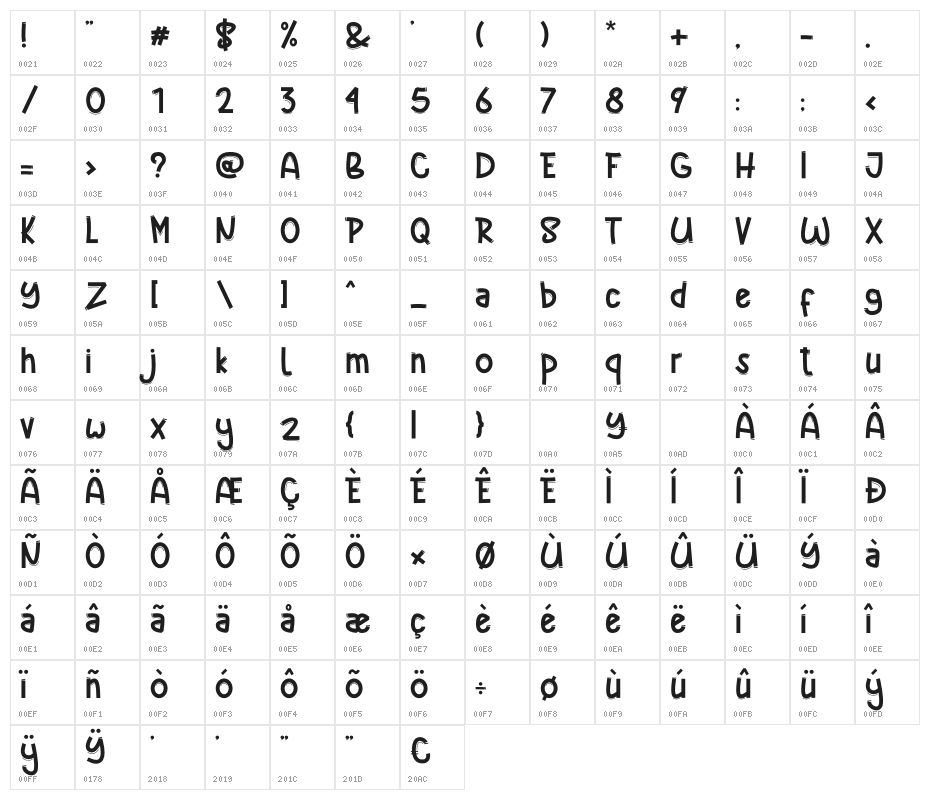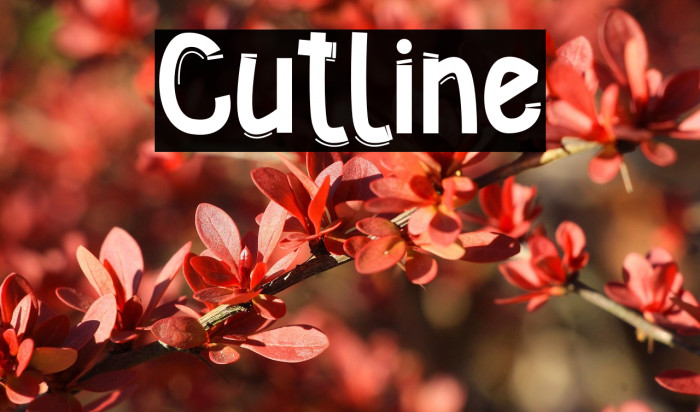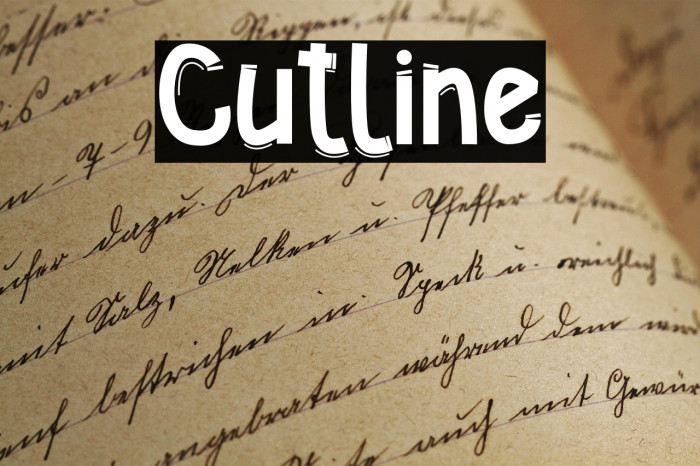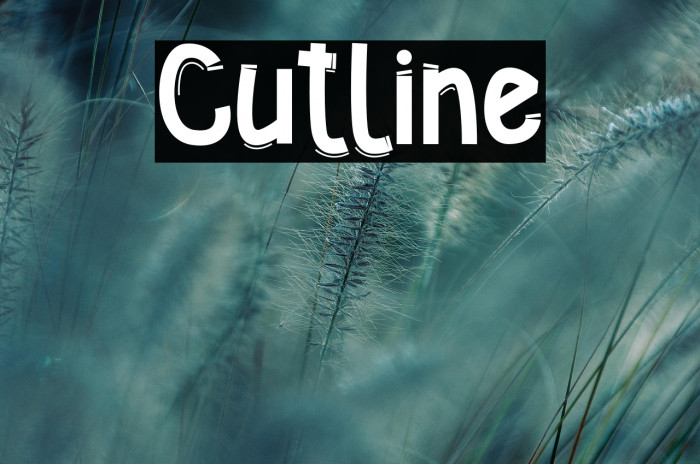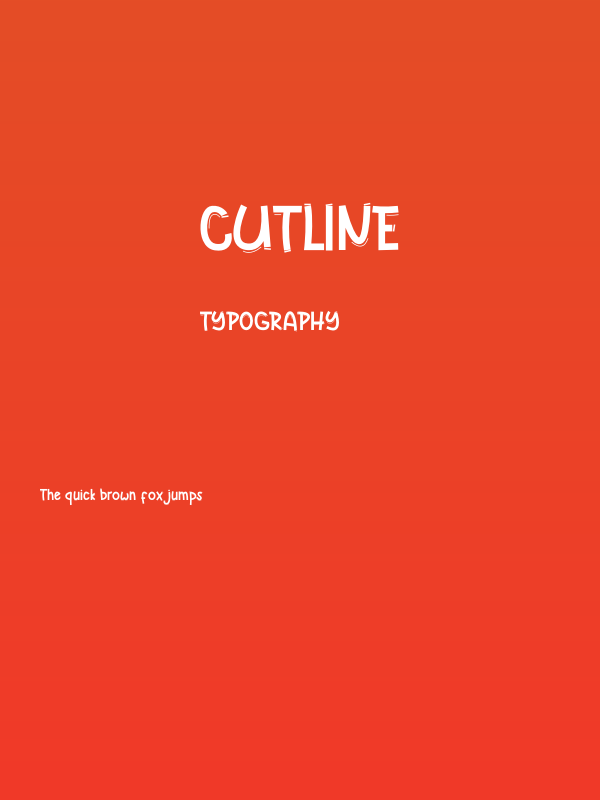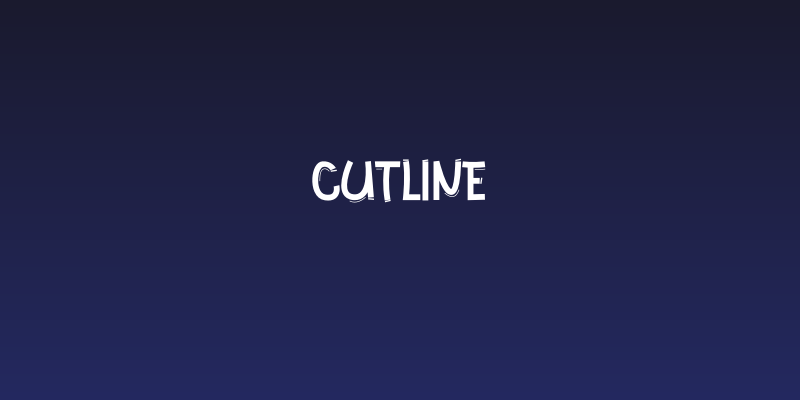
Cutline Font
Cutline Description
This font features a playful and dynamic style, characterized by its bold and slightly irregular letterforms. The strokes are thick and have a hand-drawn appearance, giving it a casual and friendly vibe. The letters are slightly tilted and have varying widths, adding to the whimsical nature of the design. The font includes both uppercase and lowercase letters, as well as numbers and a variety of special characters. Its unique style makes it stand out, making it suitable for creative and informal projects.
| Overall Style | Playful, Casual |
| Proposed Projects | Ideal for children's books, comic strips, playful branding, and creative posters. |